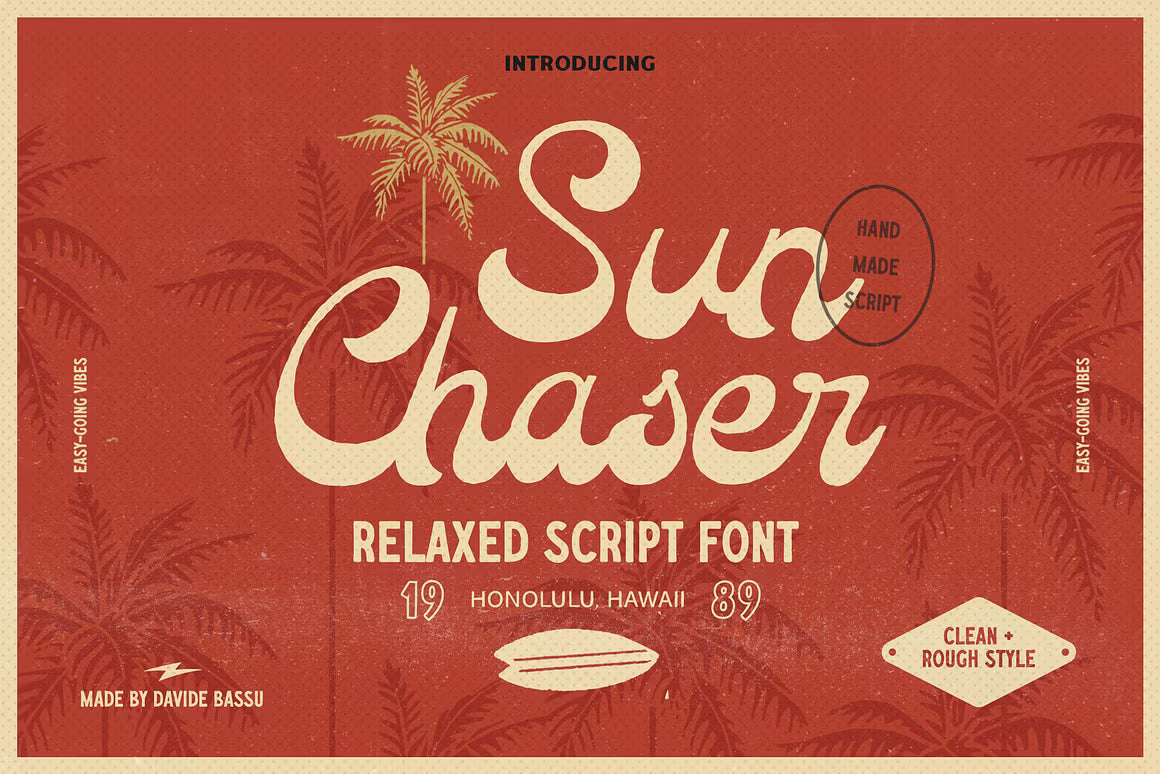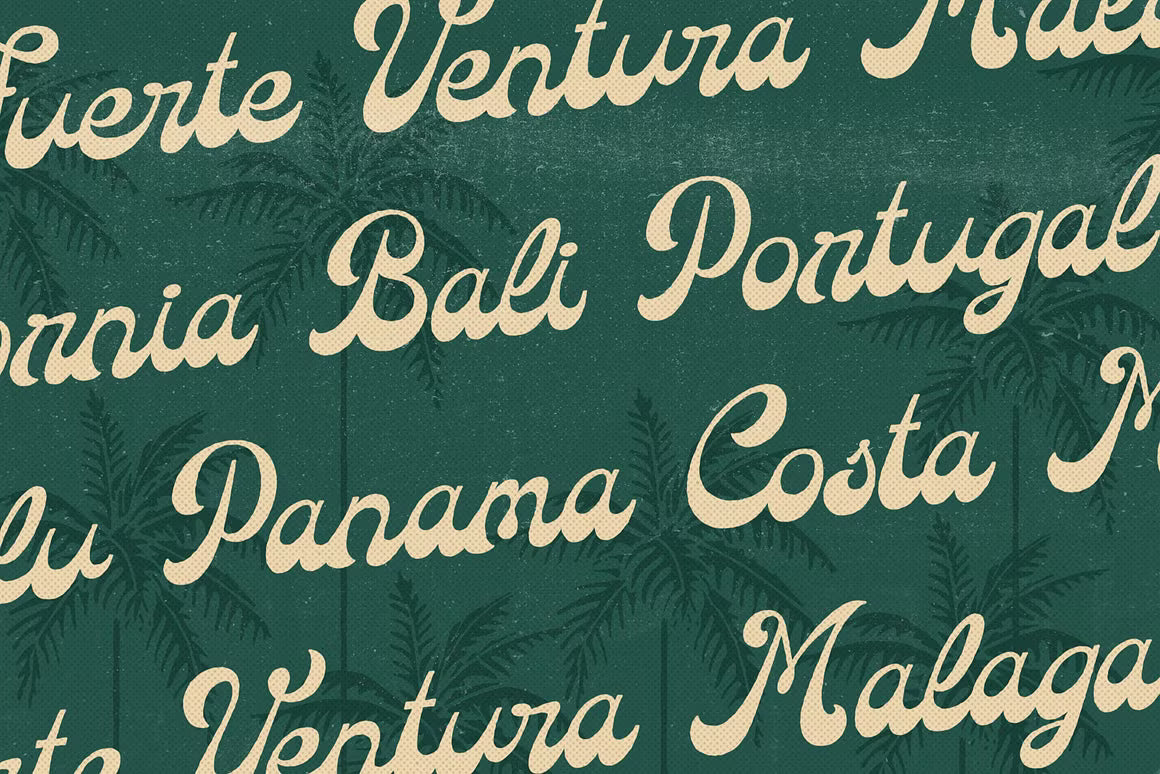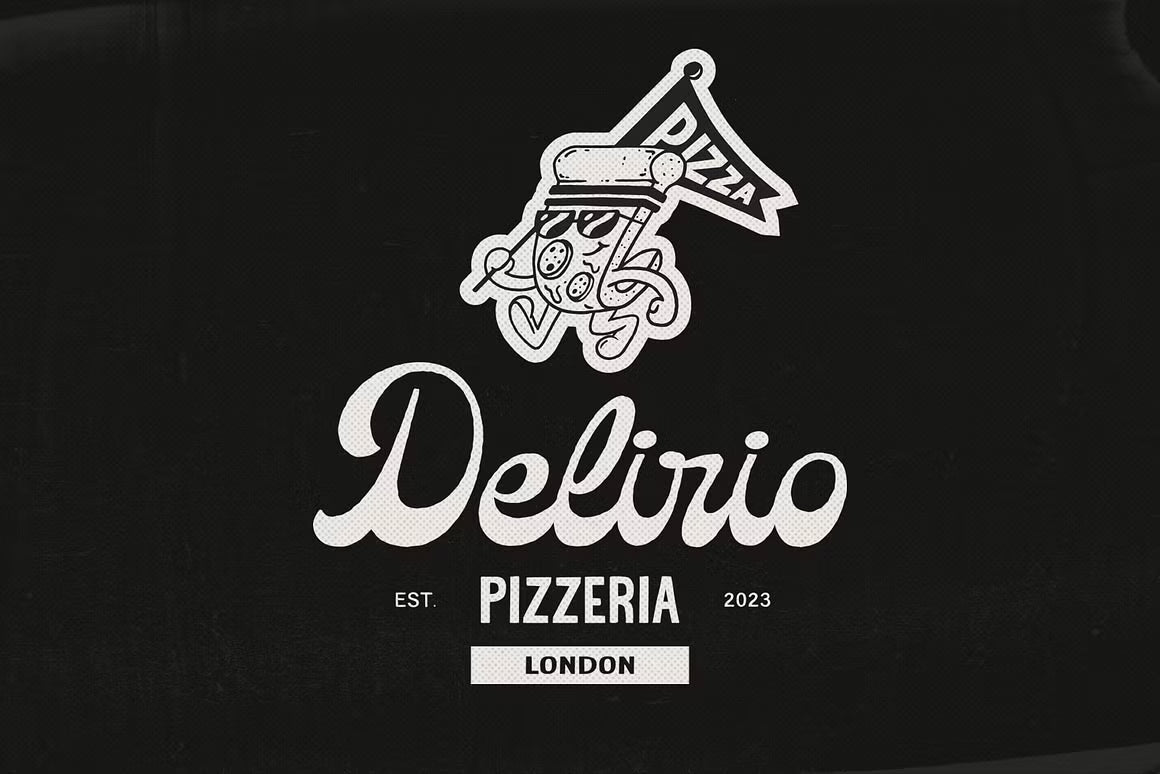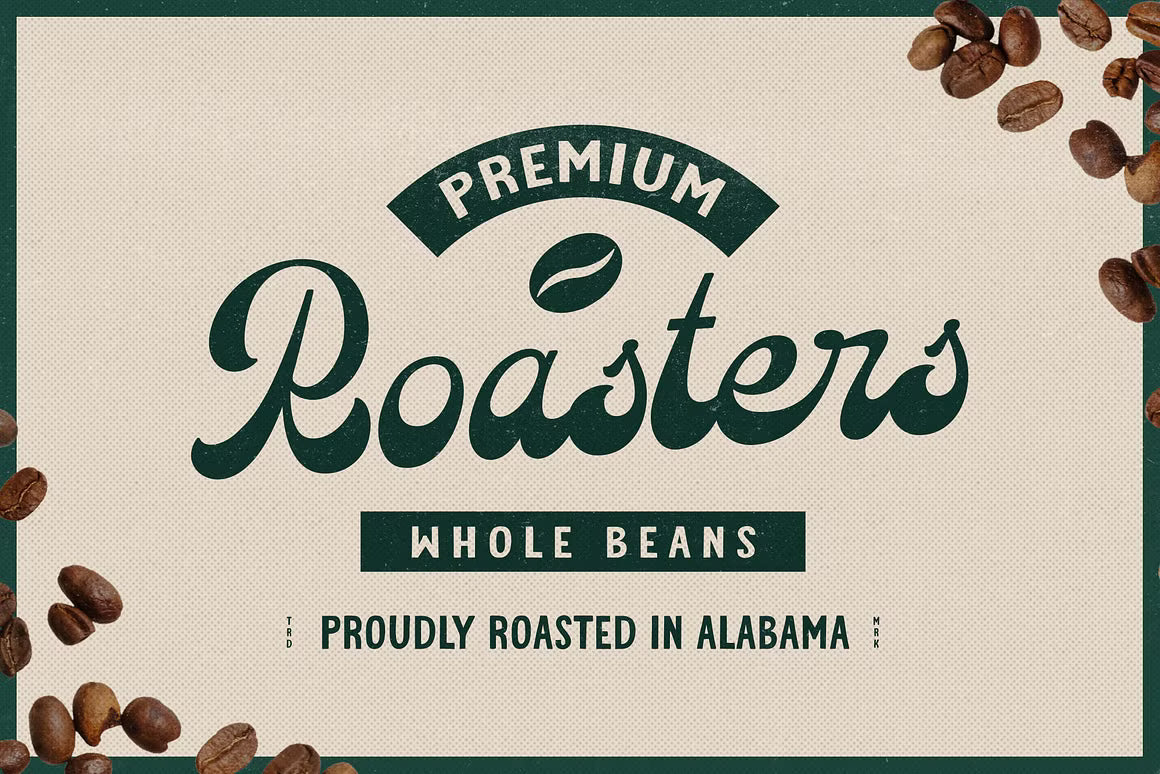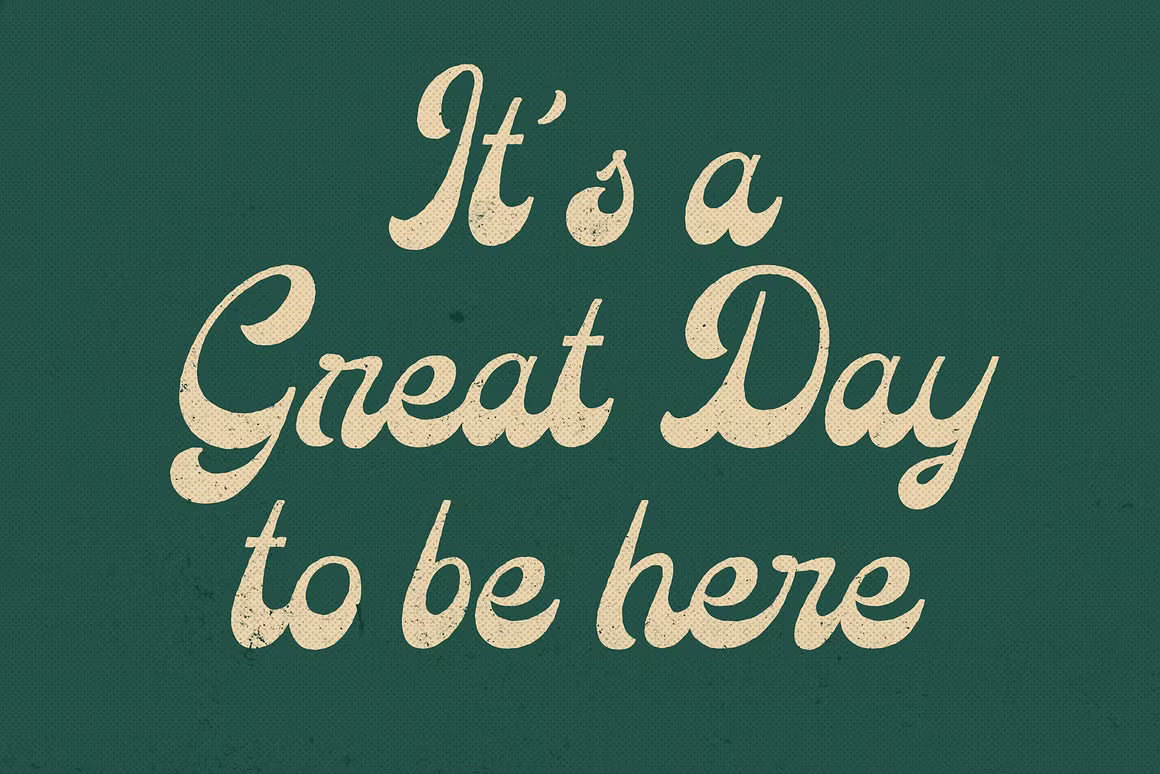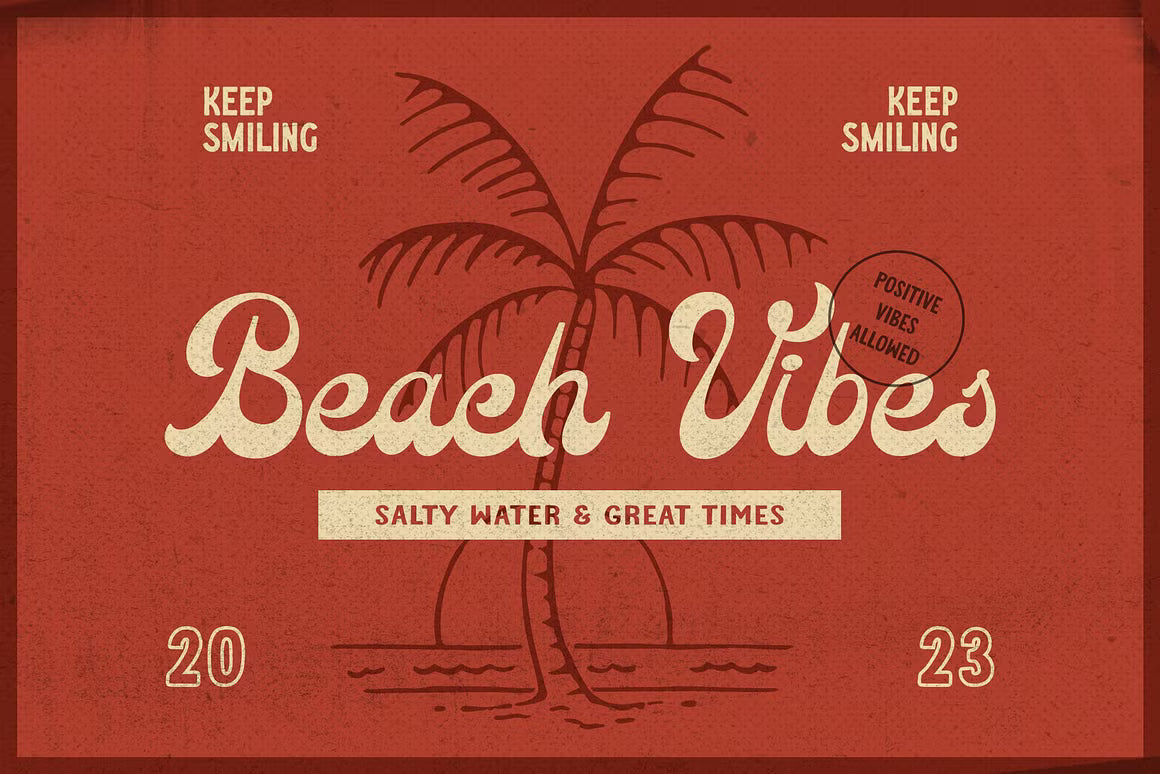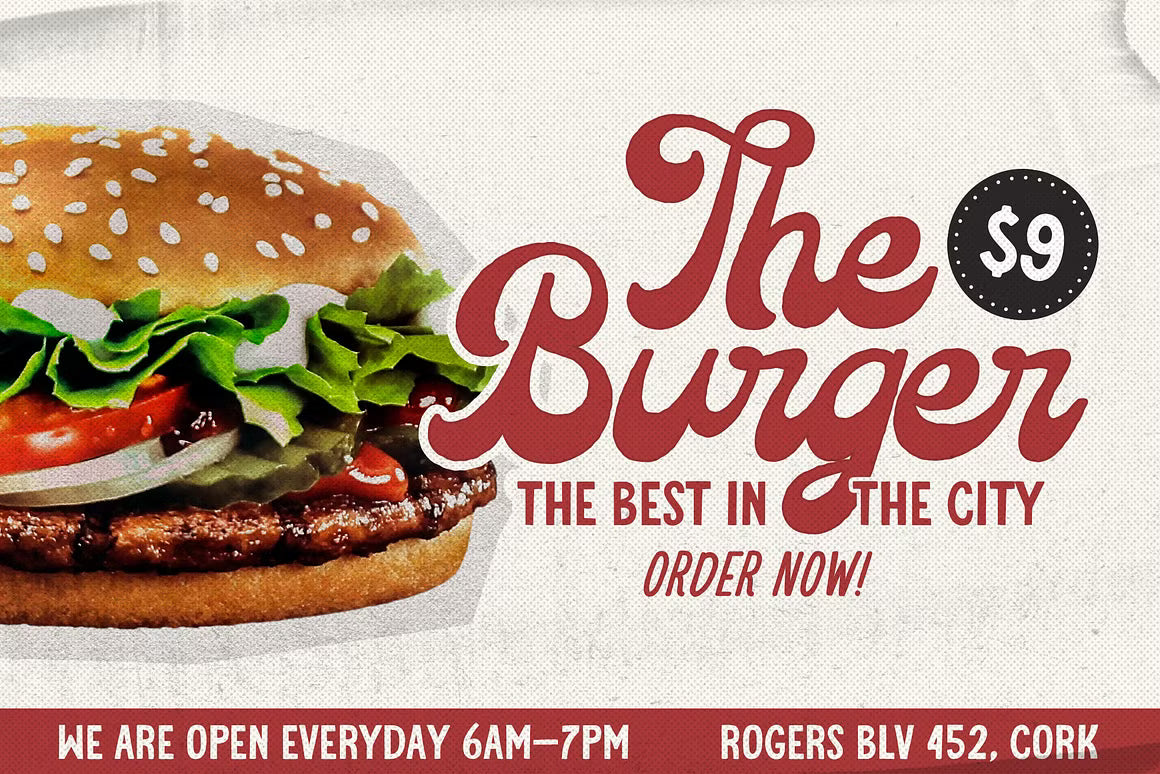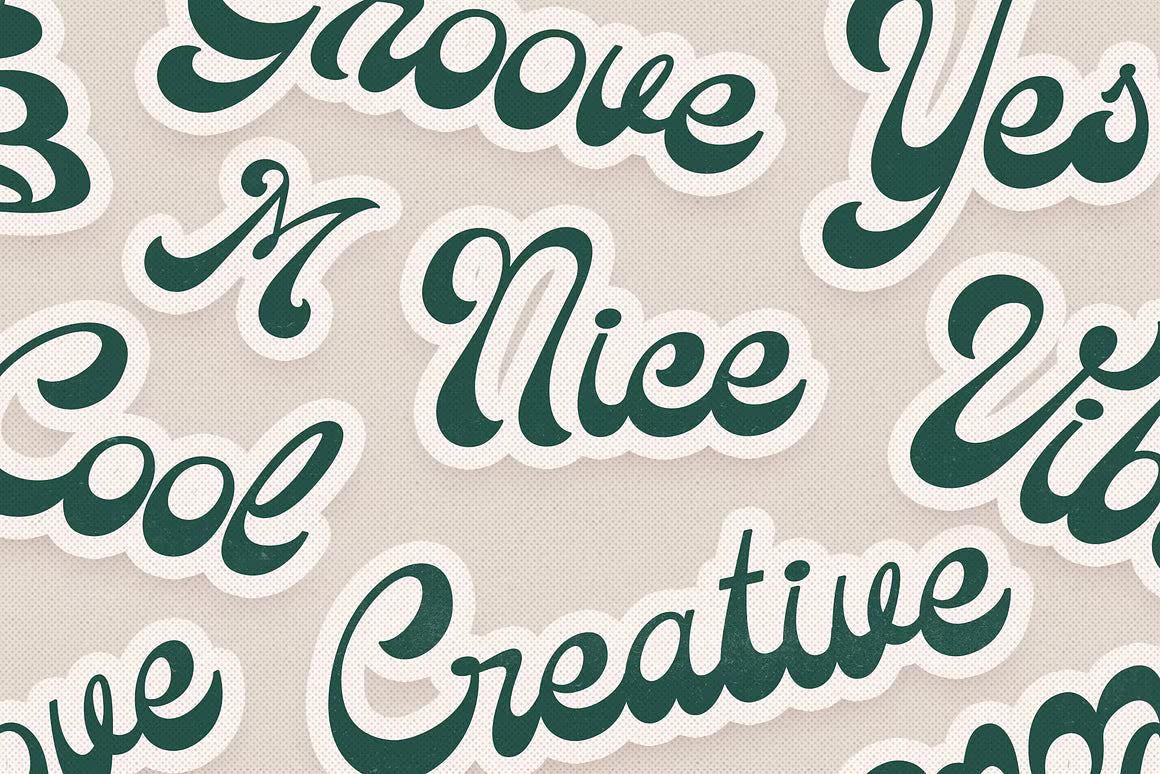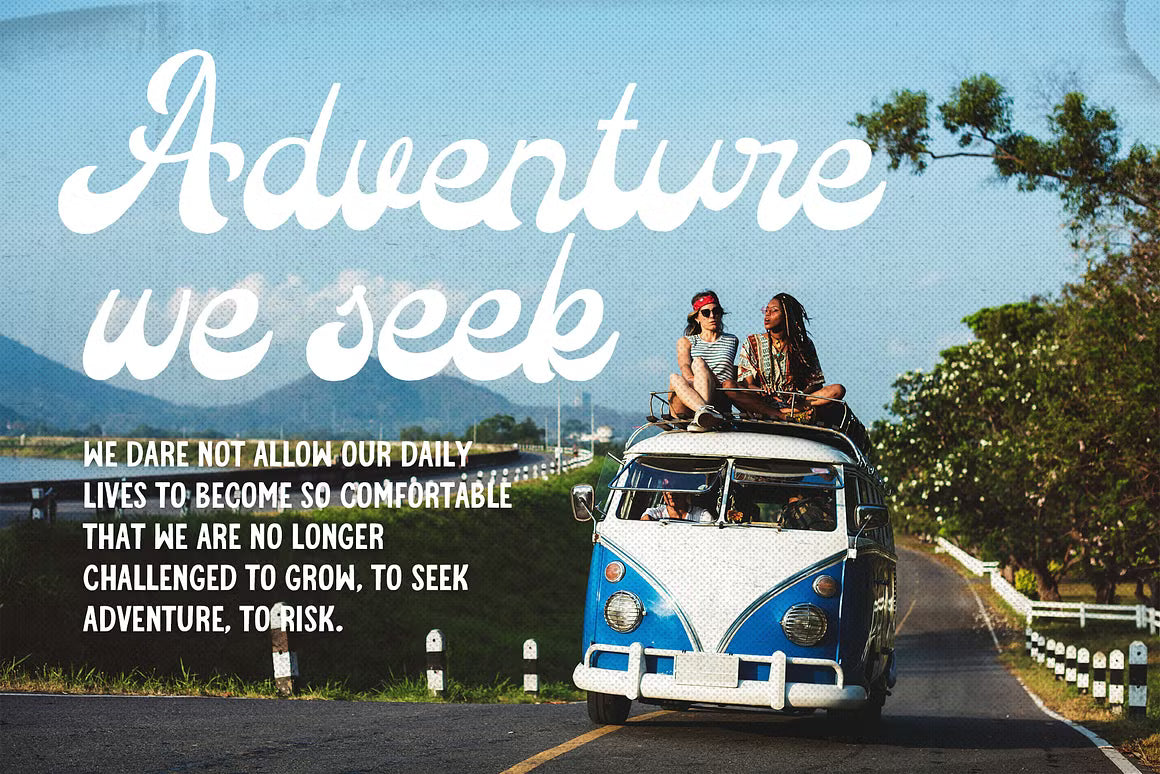
Sun Chaser is a fun, retro relaxed script font that perfectly captures the carefree spirit of surf culture and sunny beach vibes. With its bold, curvy letterforms and playful personality, this font adds a nostalgic yet fresh touch to any design.
Ideal for T-shirts, posters, social media graphics, branding, quotes, and apparel, Sun Chaser stands out with excellent readability and a distinctive funky character that works great for both headlines and shorter text.
A must-have font for designers who want to bring playful retro energy and summer nostalgia to their projects.